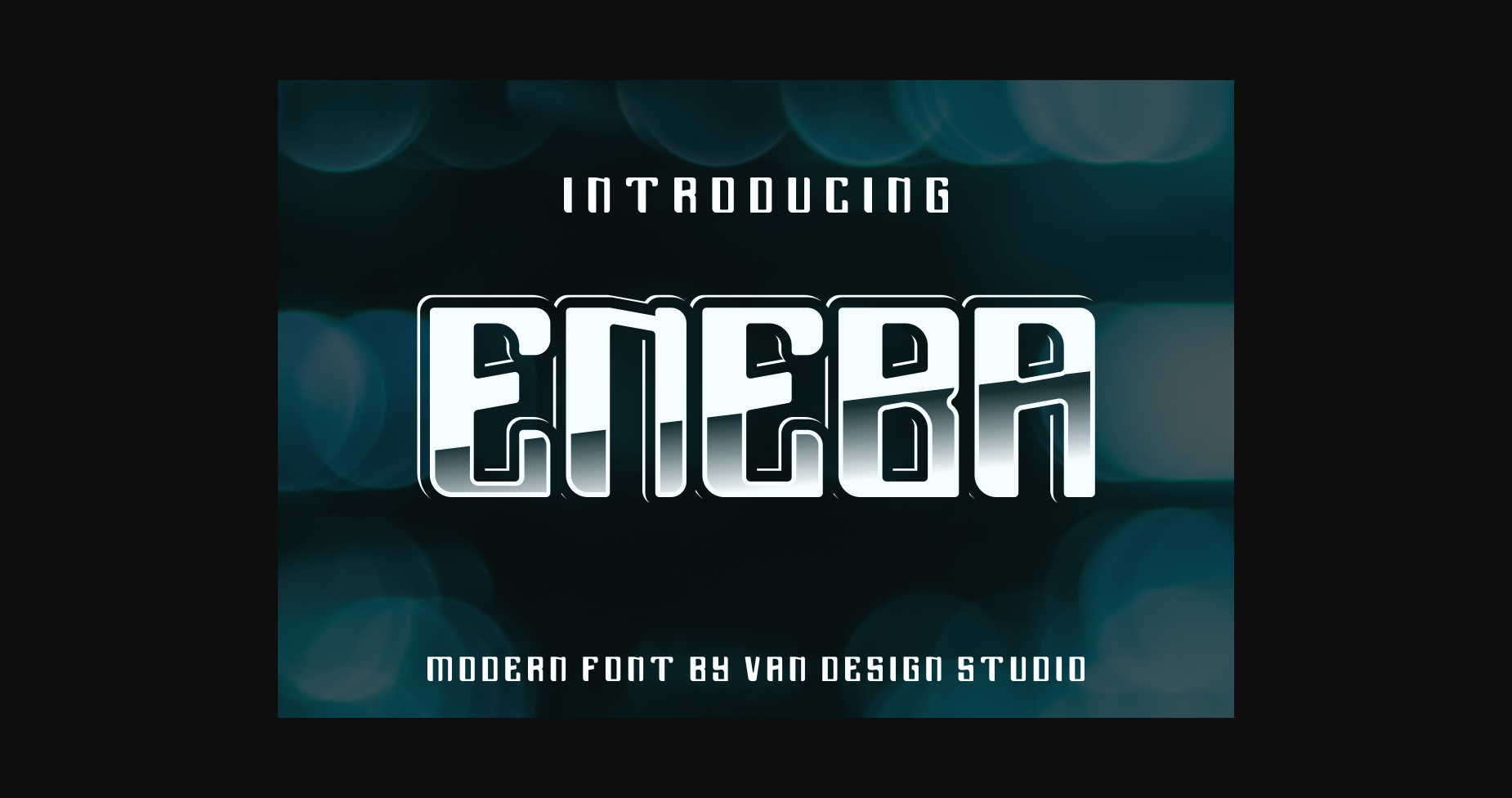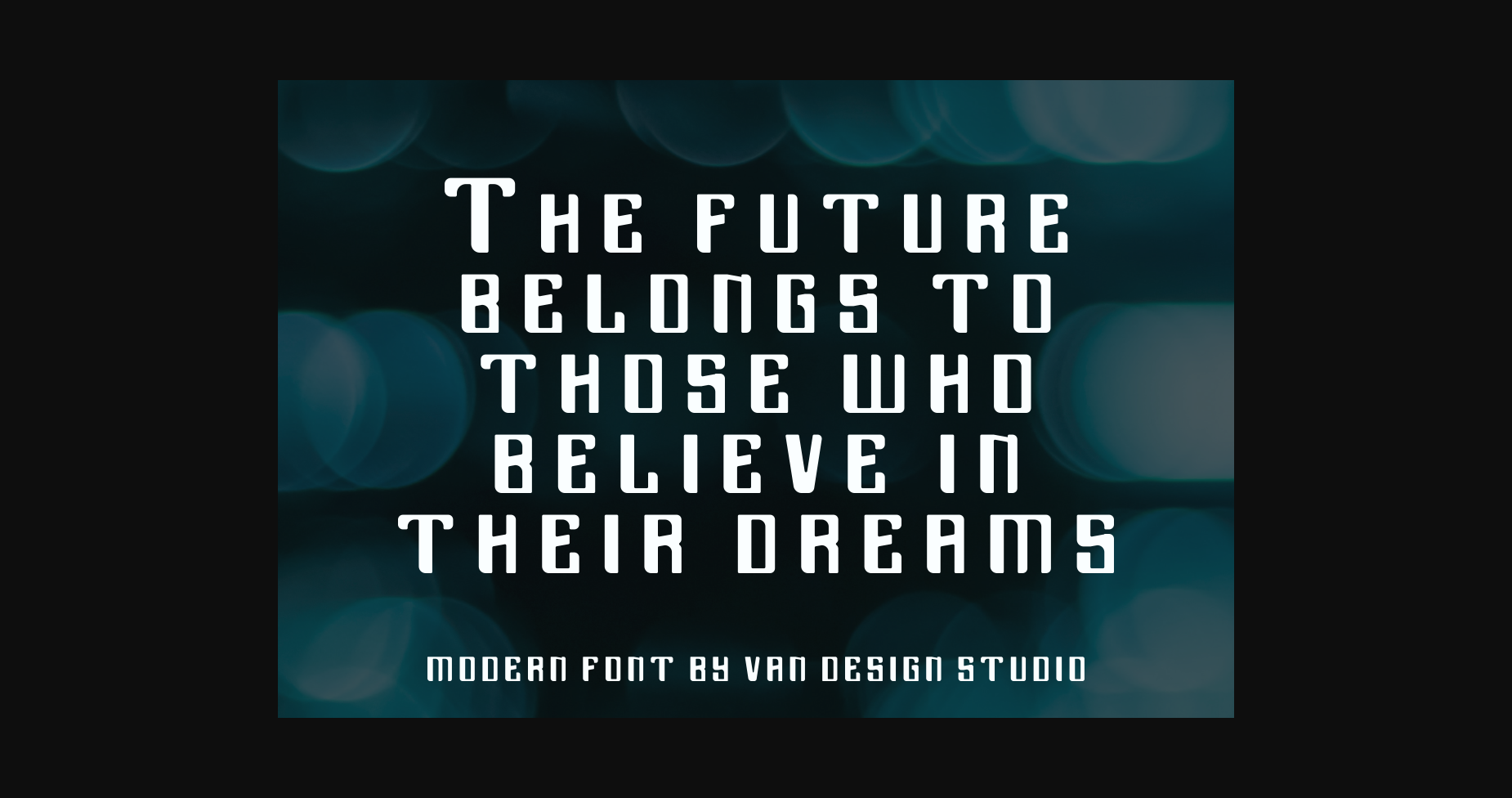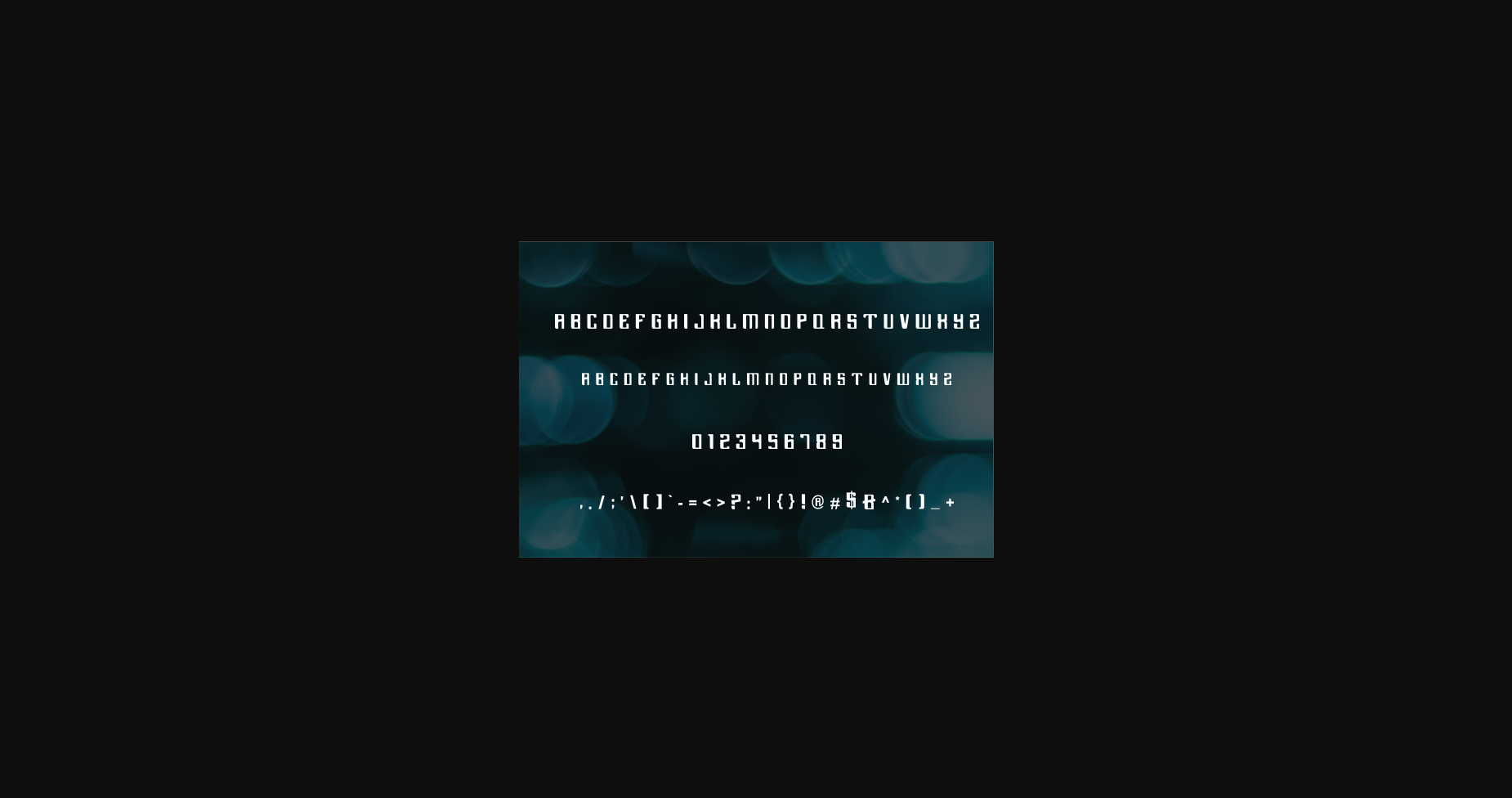
About Eneba Font
Introducing ENEBA, a cutting-edge font that combines modernity, technology, and sleekness. This display sans-serif typeface exudes a contemporary vibe, making it perfect for tech-related projects. Its clean and stylish design captures attention, making your content stand out with a touch of sophistication.